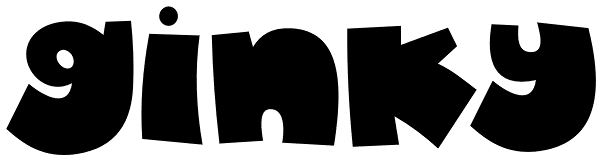
Ginky
Ginky is another one of those grafitti- and comic-inspired pizzadude.dk fonts! You will need to use OpenType supporting applications to use the ligatures.
Ginky Font